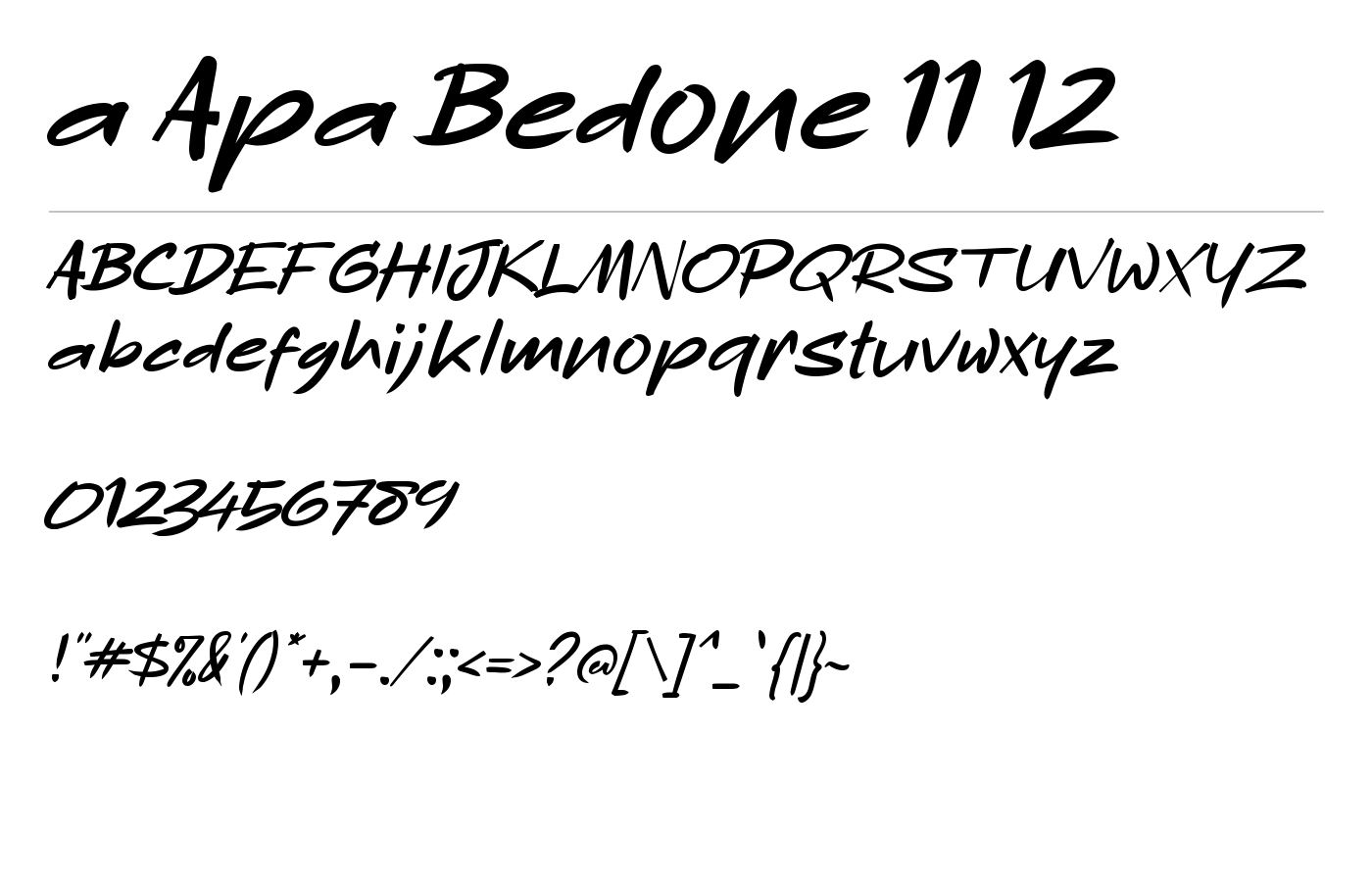
Apa Bedone 11 12 is a lively, casual script font with a smooth, handwritten feel that brings warmth and personality to any design. Its slightly slanted, medium-weight strokes and open letterforms create an approachable and energetic style, making it perfect for informal branding, creative projects, and friendly headlines. This font works well where a natural, personal touch is desired, such as invitations, logos, and social media graphics.
a Apa Bedone 11 12 Font
About a Apa Bedone 11 12 Font